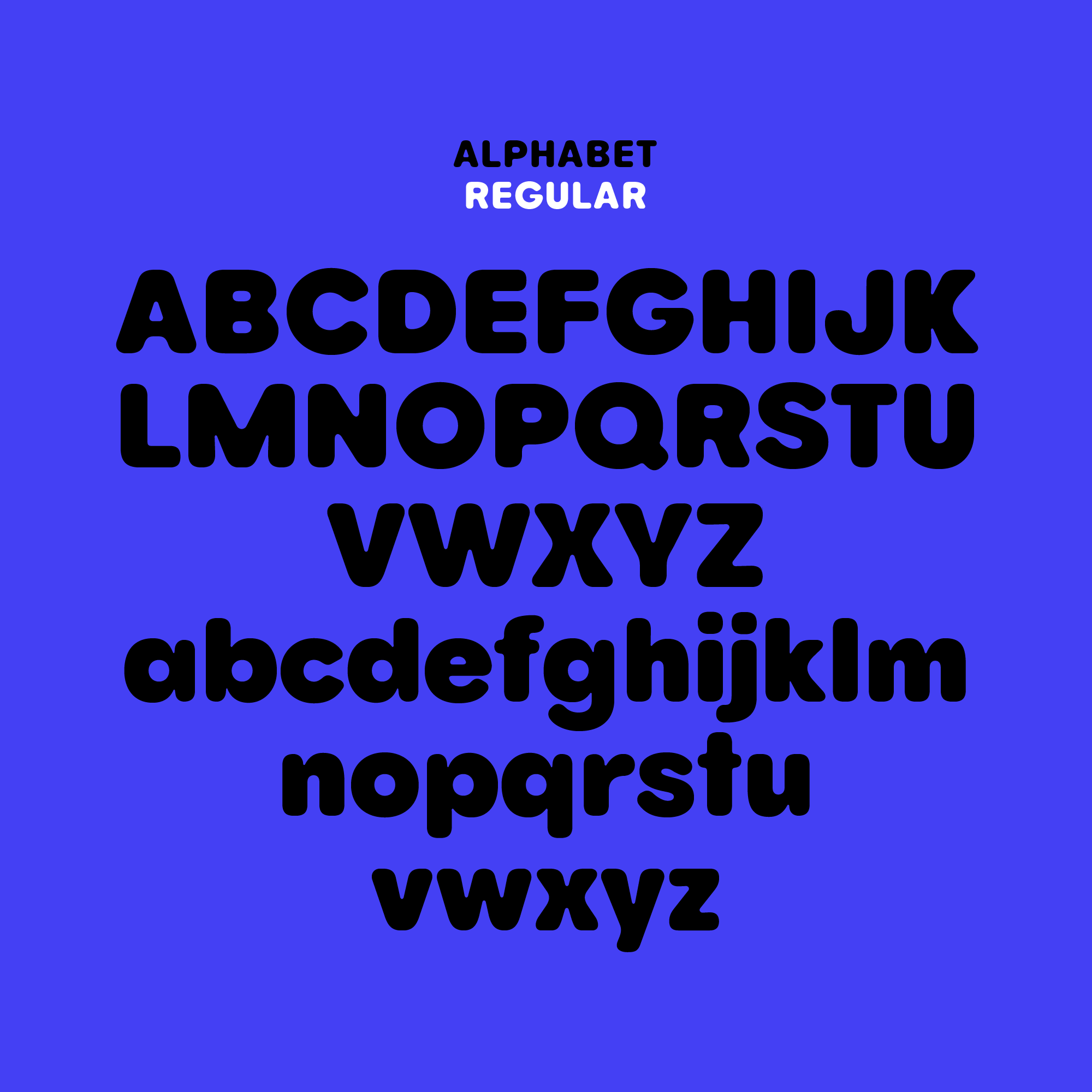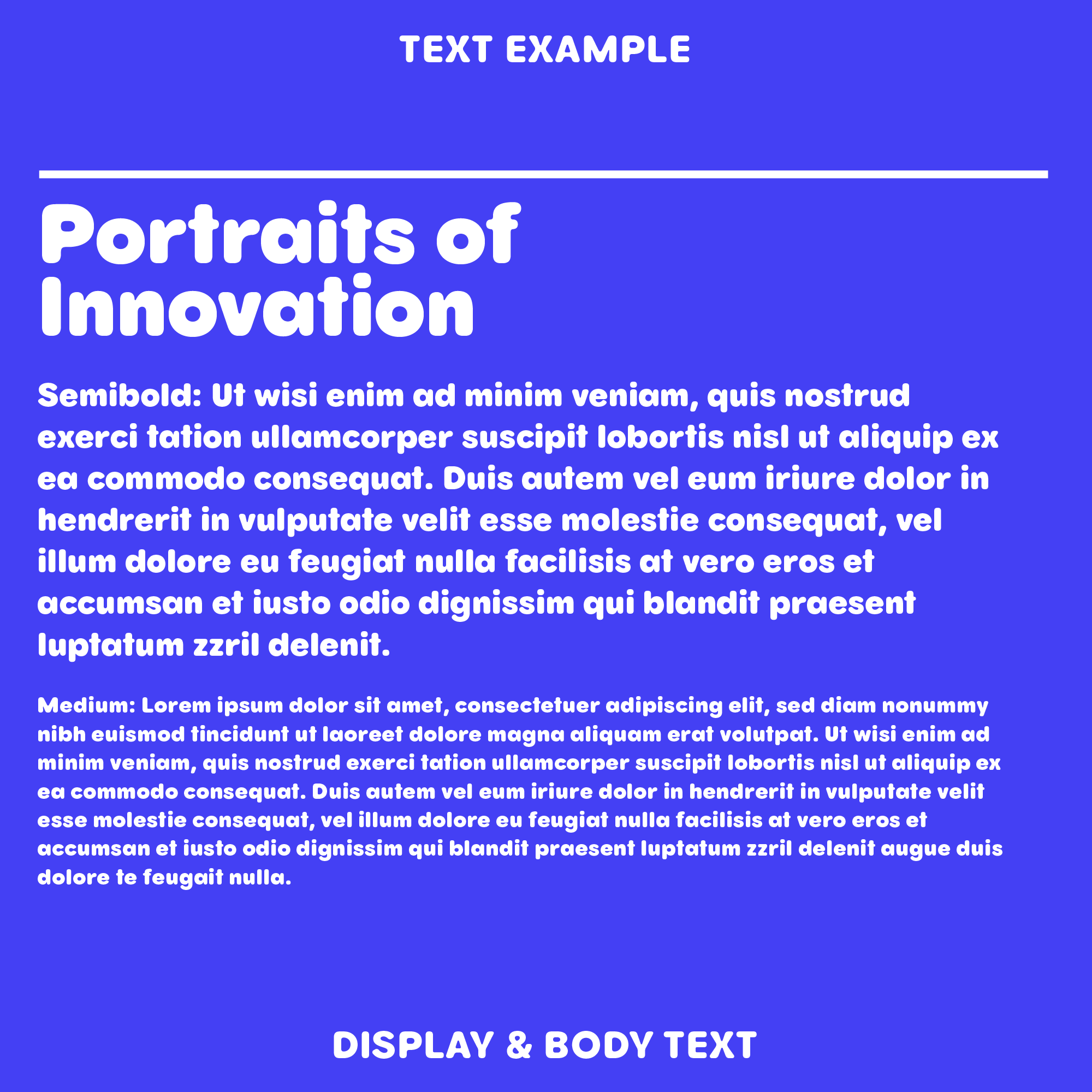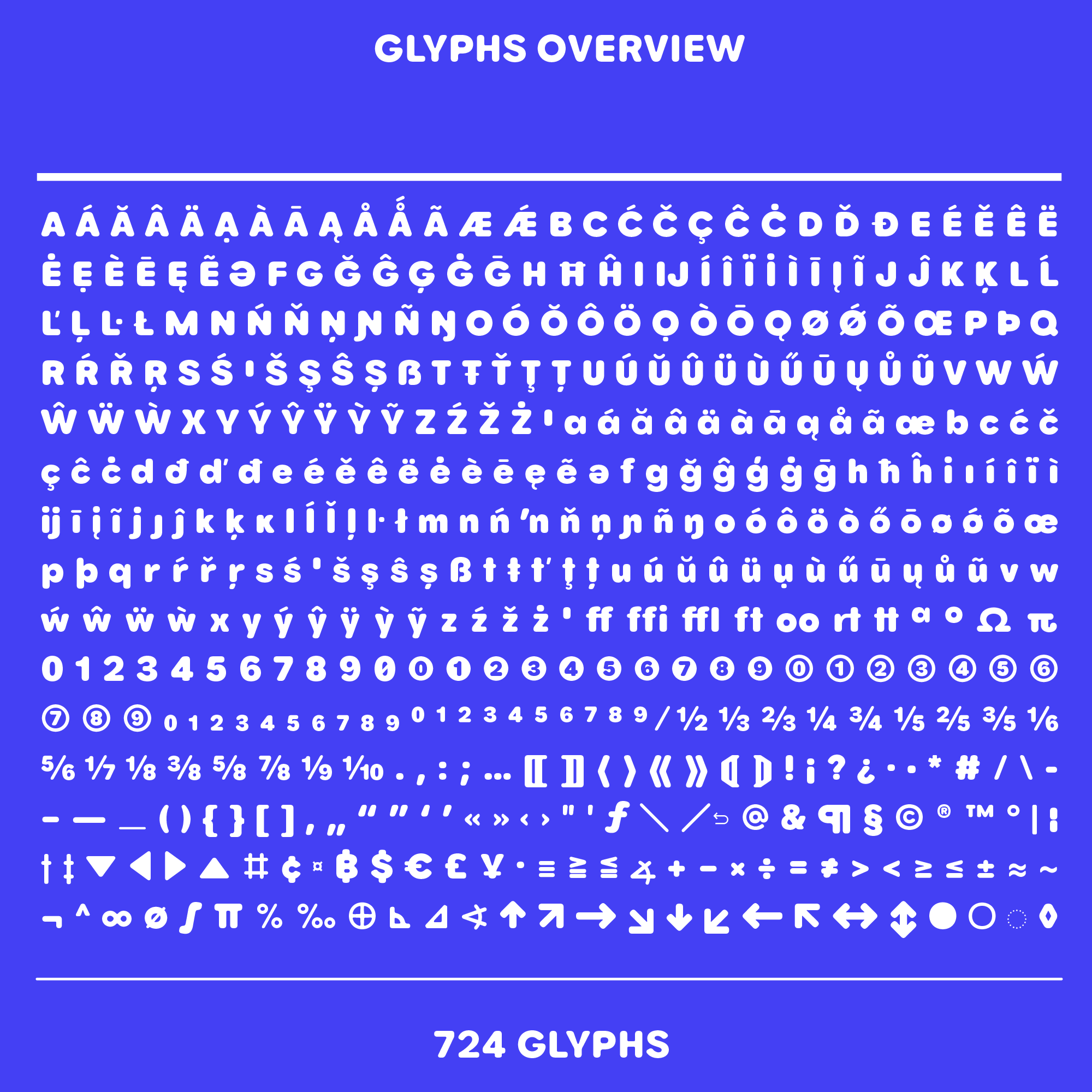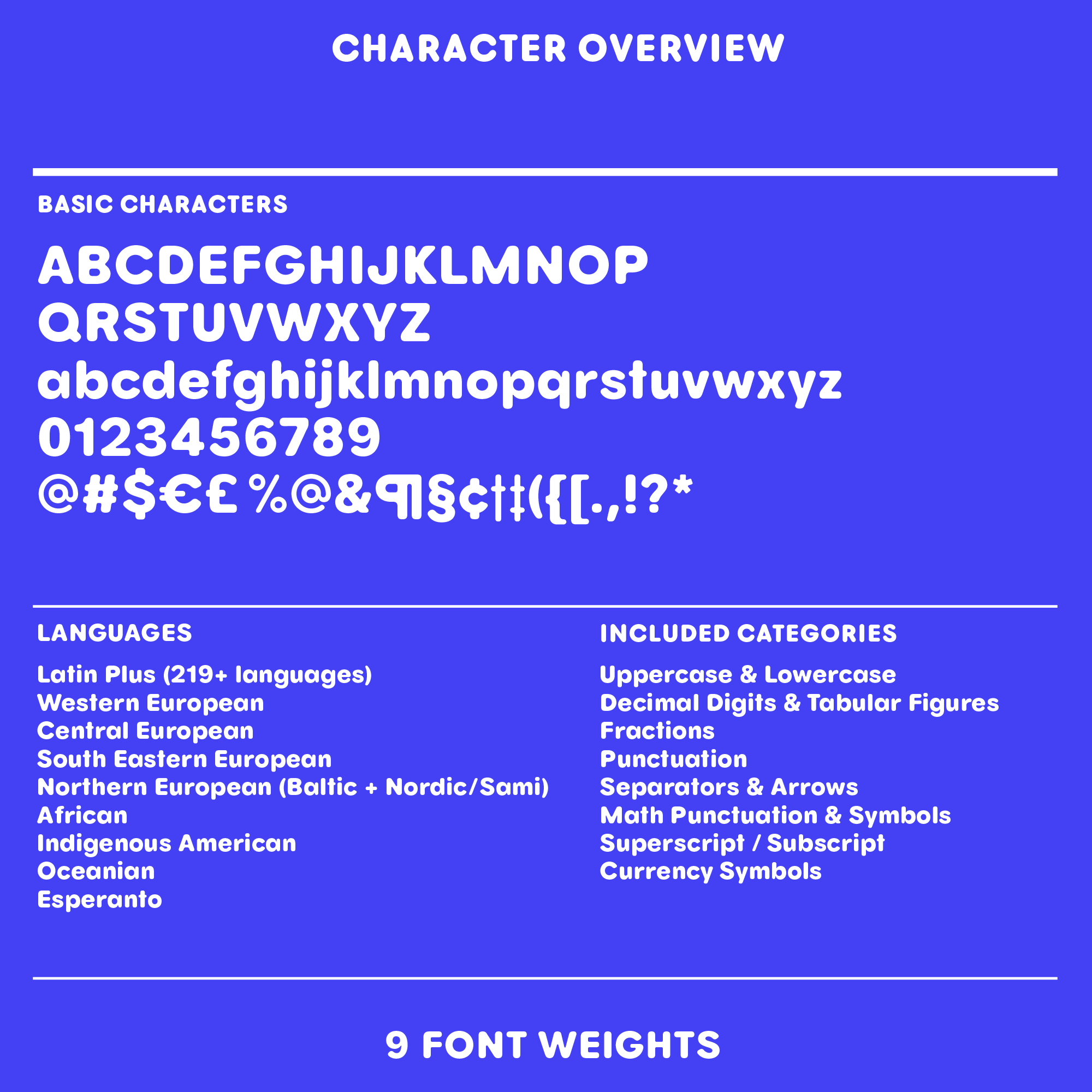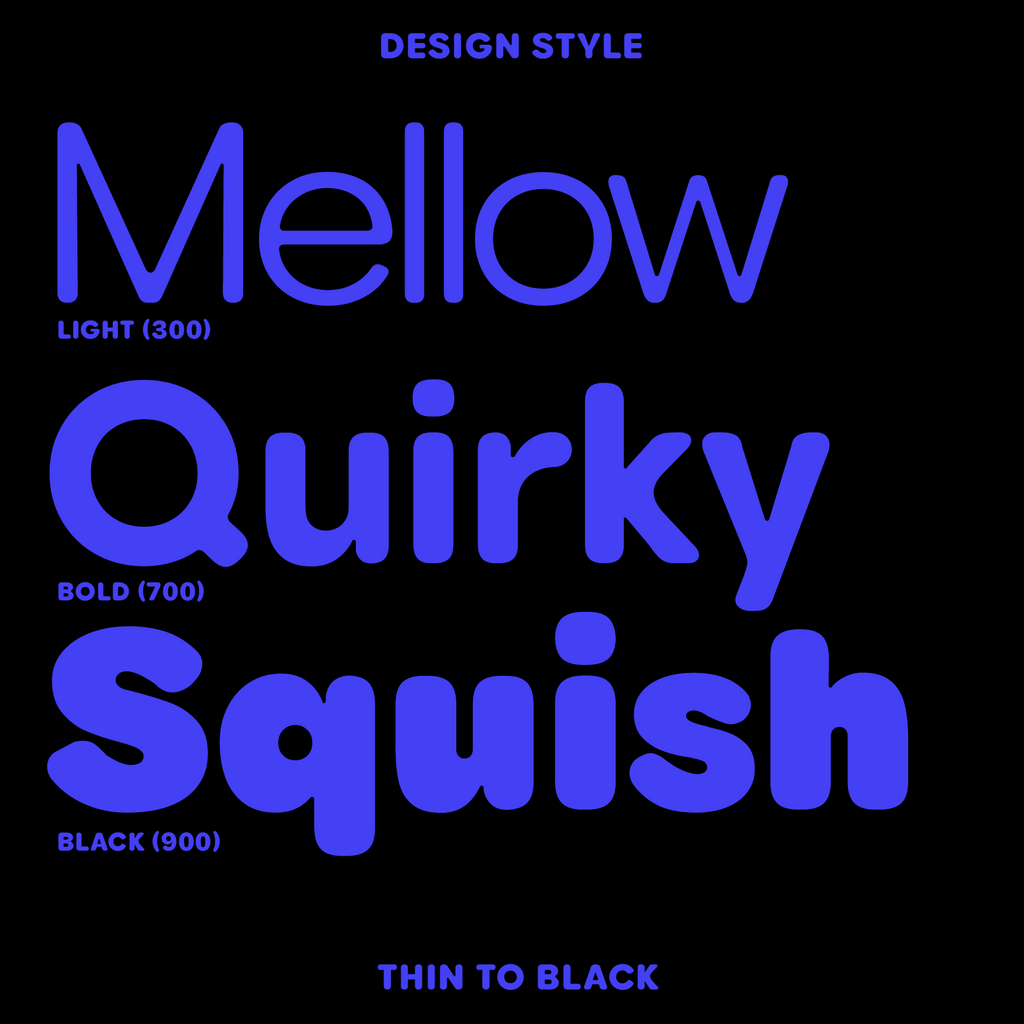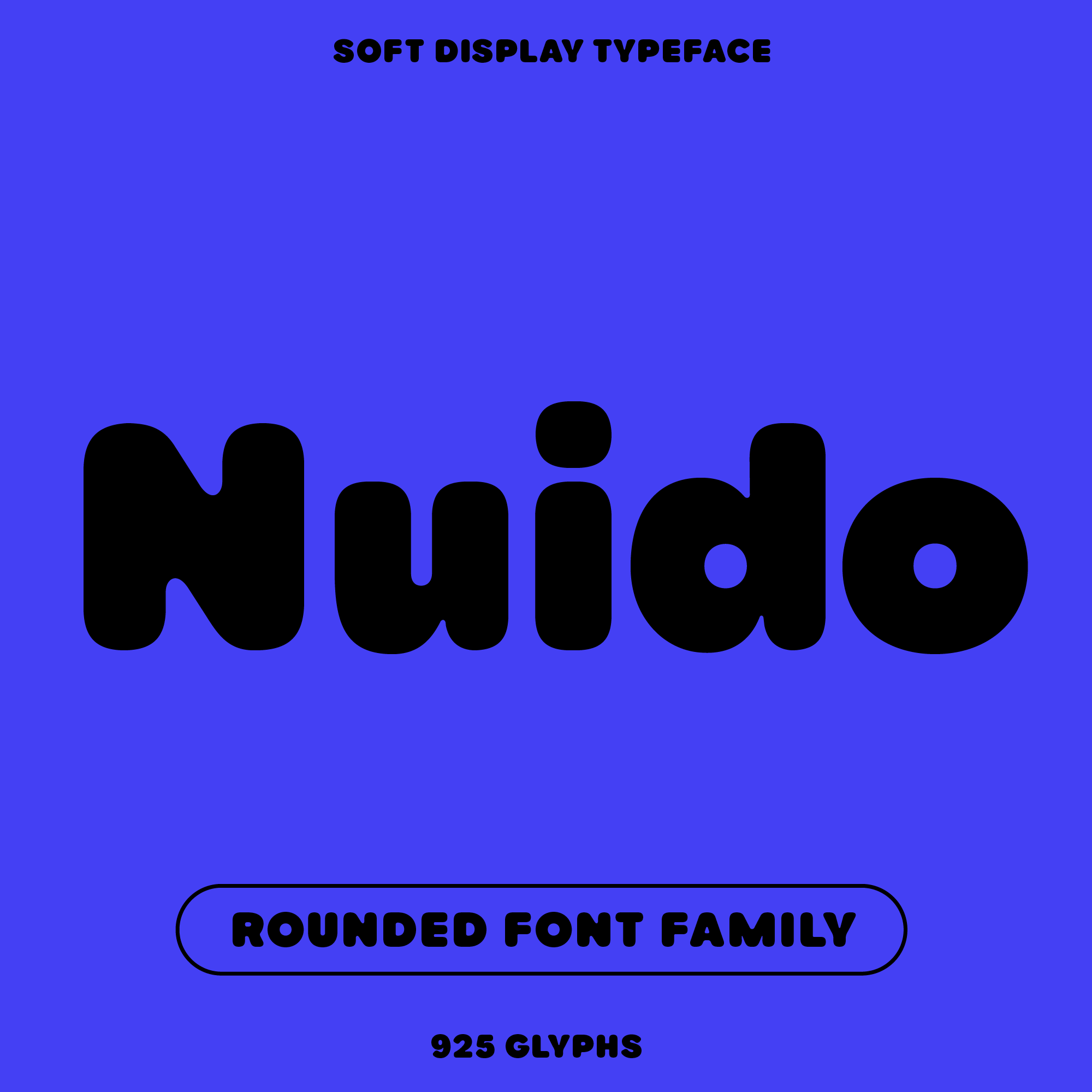
Nuido soft rounded sans font
Nuido—Soft Modern Sans Serif Font, Rounded Stems
Nuido is a soft, rounded sans font built on a geometric frame. It’s a modern grotesque with the sharp edges taken off, warm and easygoing. A little balloony and squarish. Nine weights and a variable font, ready for logos, branding, and anything that wants a friendly voice.
Nuido in detail
Family
Variable font, weight axis wght 100-950, with 9 named weights: Thin, ExtraLight, Light, Regular, Medium, SemiBold, Bold, ExtraBold, Black. 749 glyphs, 638 characters, 2 stylistic sets.
Languages
Latin, Western European accents, Central European, Vietnamese.
Figures
Proportional, tabular, slashed zero.
OpenType features
Case-sensitive punctuation, discretionary ligatures, fractions, standard ligatures, ordinals, proportional figures, tabular figures, slashed zero.
Ligatures
On by default: ff, ffl, tt. Discretionary, switched on by the designer: rt.